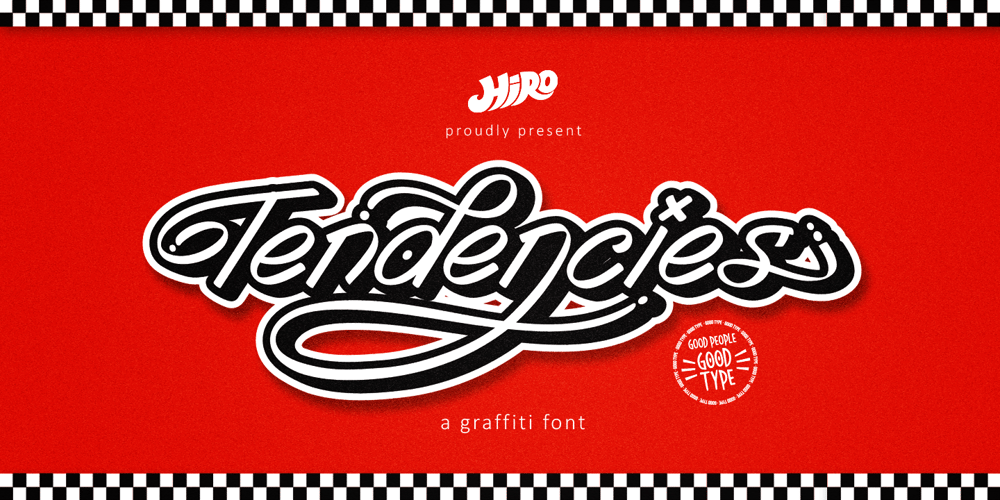
Tendencies
Tendencies font
Tendencies Font Family was designed by Chairul Ashar and published by HIRO.std. Tendencies contains 3 styles and family package options. Tendencies – Graffiti FontThis font describes culture, hip-hop, gravity, style, spray, road, travel, is easy to use and will bring good harmony when the letters are connected with alternate styles and paired with each other Tendencies has more than 489 GlyphsFEATURES- Ligatures- Stylistic Alternates- Uppercase- Lowercase- Numbering and Punctuations- Multilingual Support- Works on PC or Mac- Simple InstallationUSE Tendencies works great in any branding, board, logos, apparel, produk pagaking, magazines, label, films, stationary, poster, etc. and any projects that need street art taste.